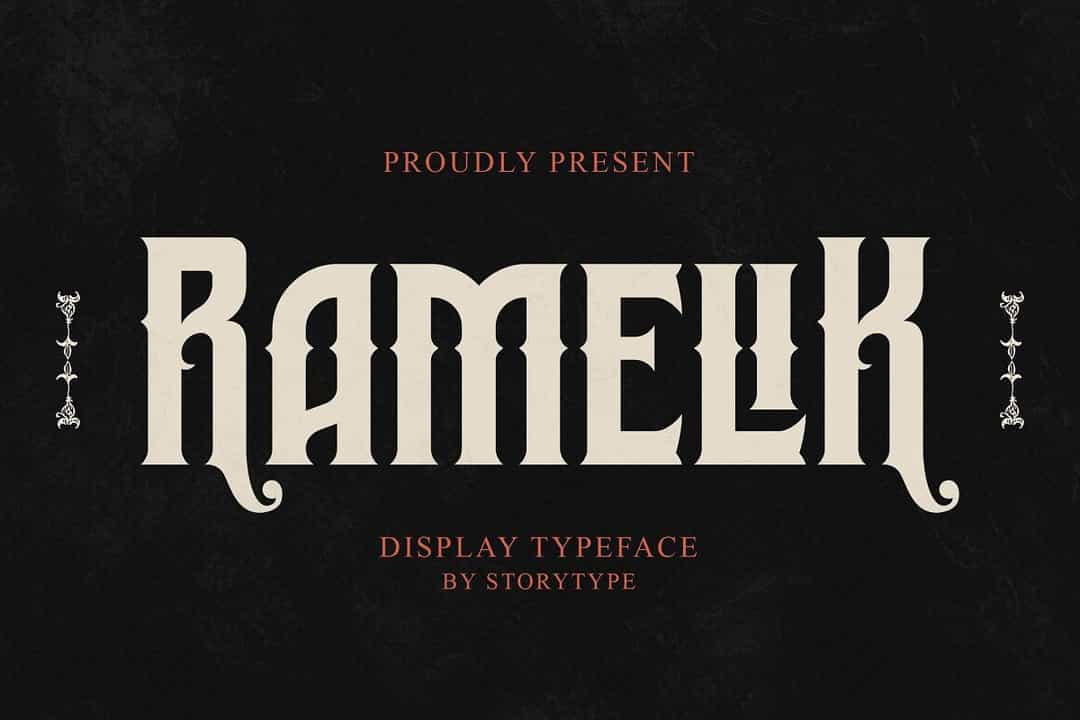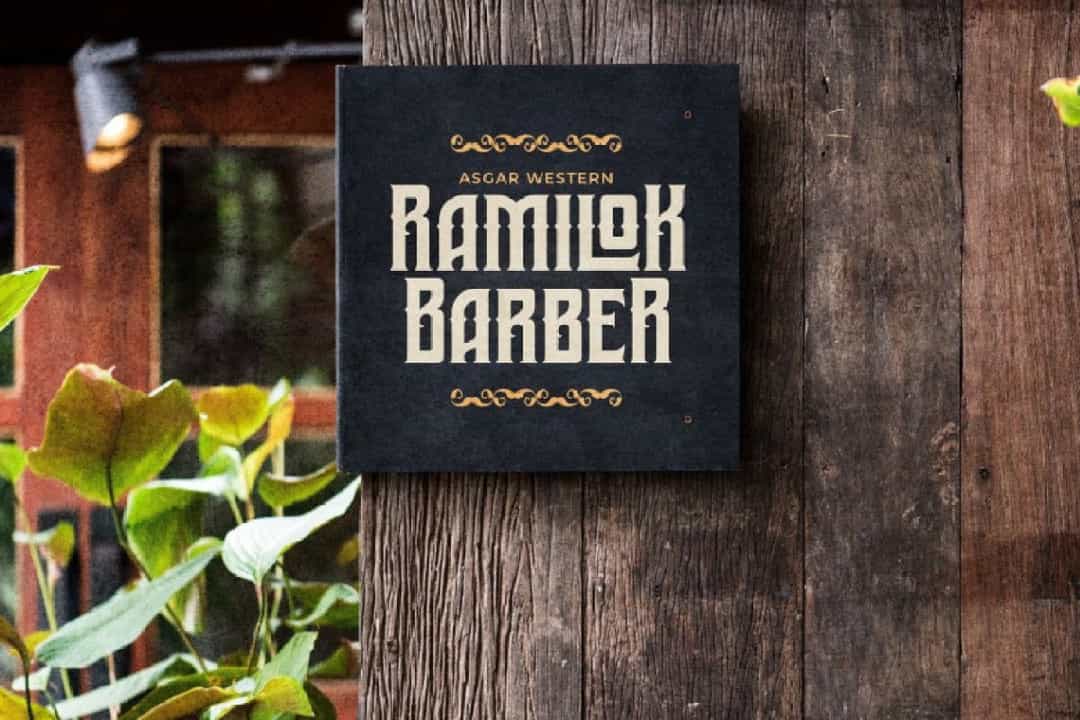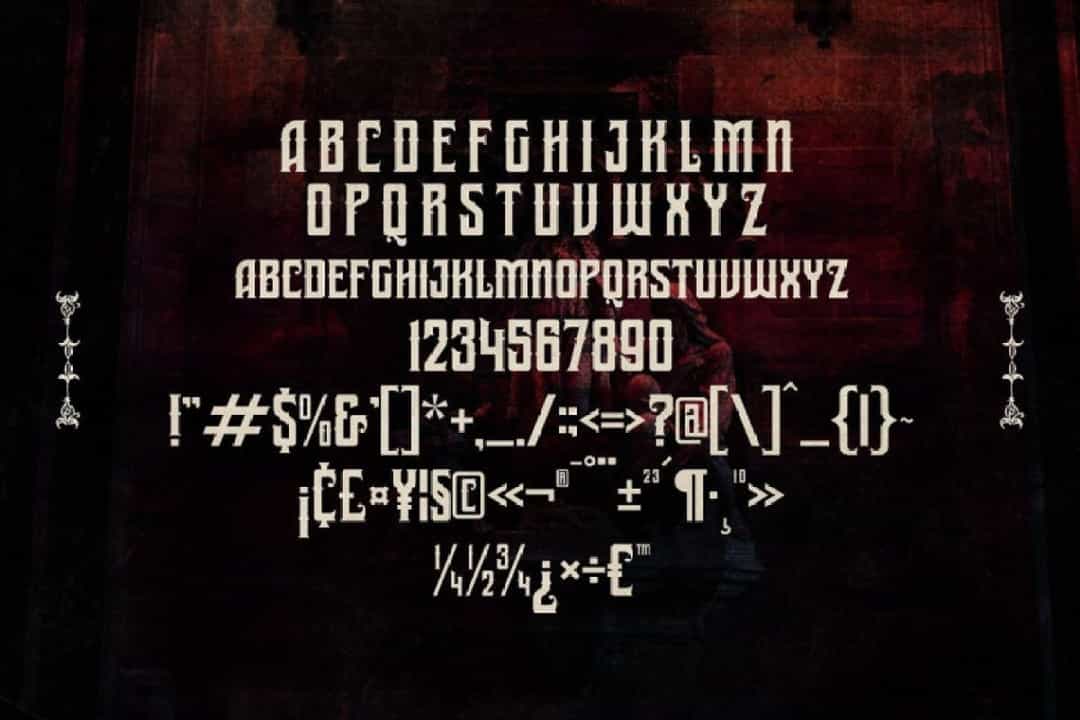
Storytype’s Ramelik Display Typeface is an eye-catching modern classic typeface with its signature style and modern appearance, perfect for use as logos, book or film name designs, fashion brand clothing labels, magazines or lettering as well as quotes – providing sophisticated logo designs for logos or films, lettering text in magazines etc. This serif font will stand out in any situation where its distinctive style meets classic appearance.